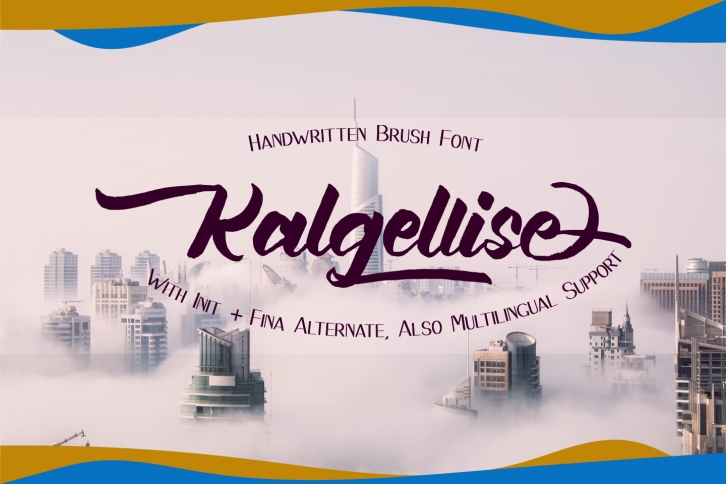
Kalgellise Handwritten Brush is a beautiful font that was designed by SSIScraps. It's a great choice for designers and creatives who need such a font. It was released on May 16, 2019 and the file size is 21.22 MB. Kalgellise Handwritten Brush may give a more youthful, expressive and casual look to your project. It is a very beautiful, refined, elegant, and high-quality font.